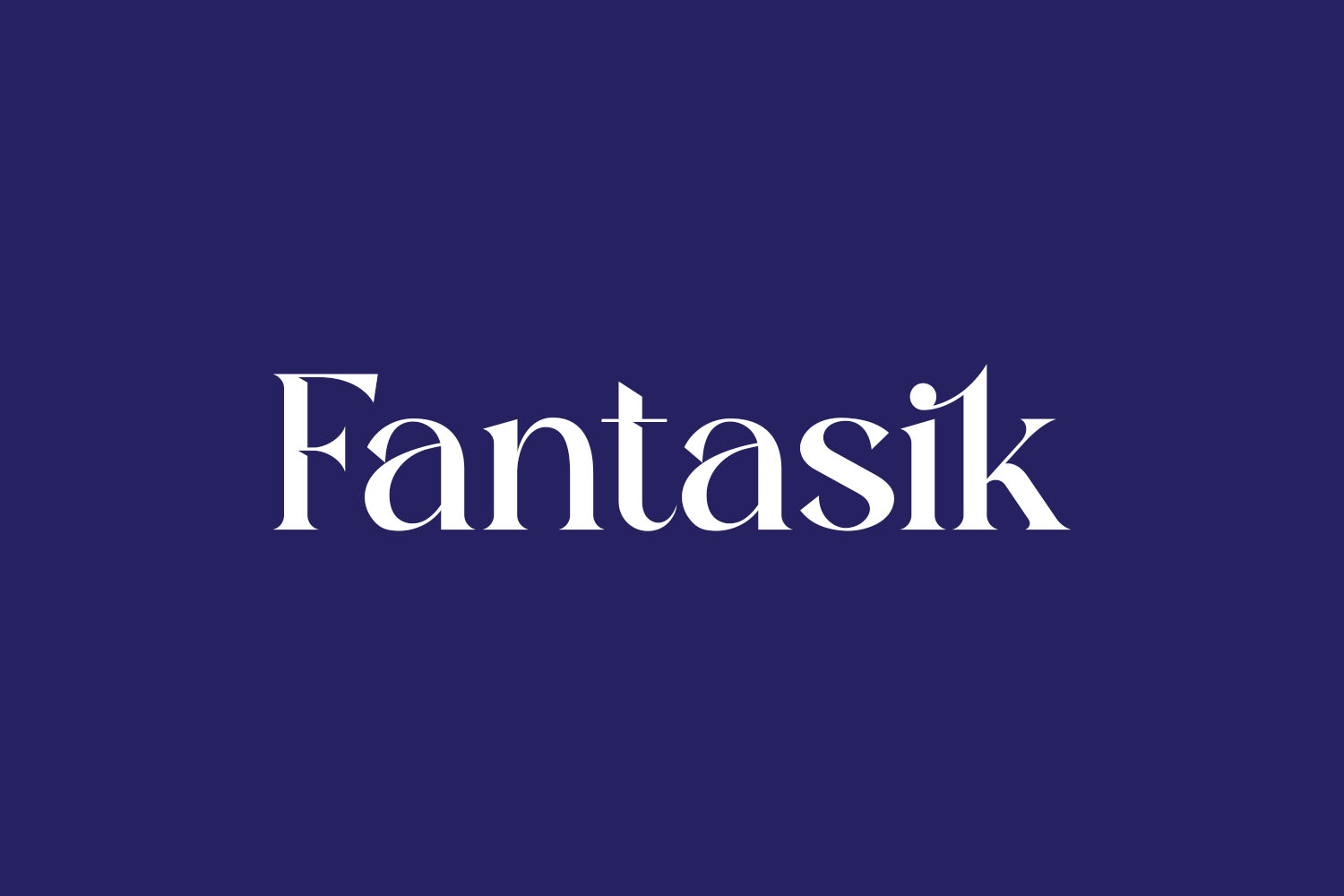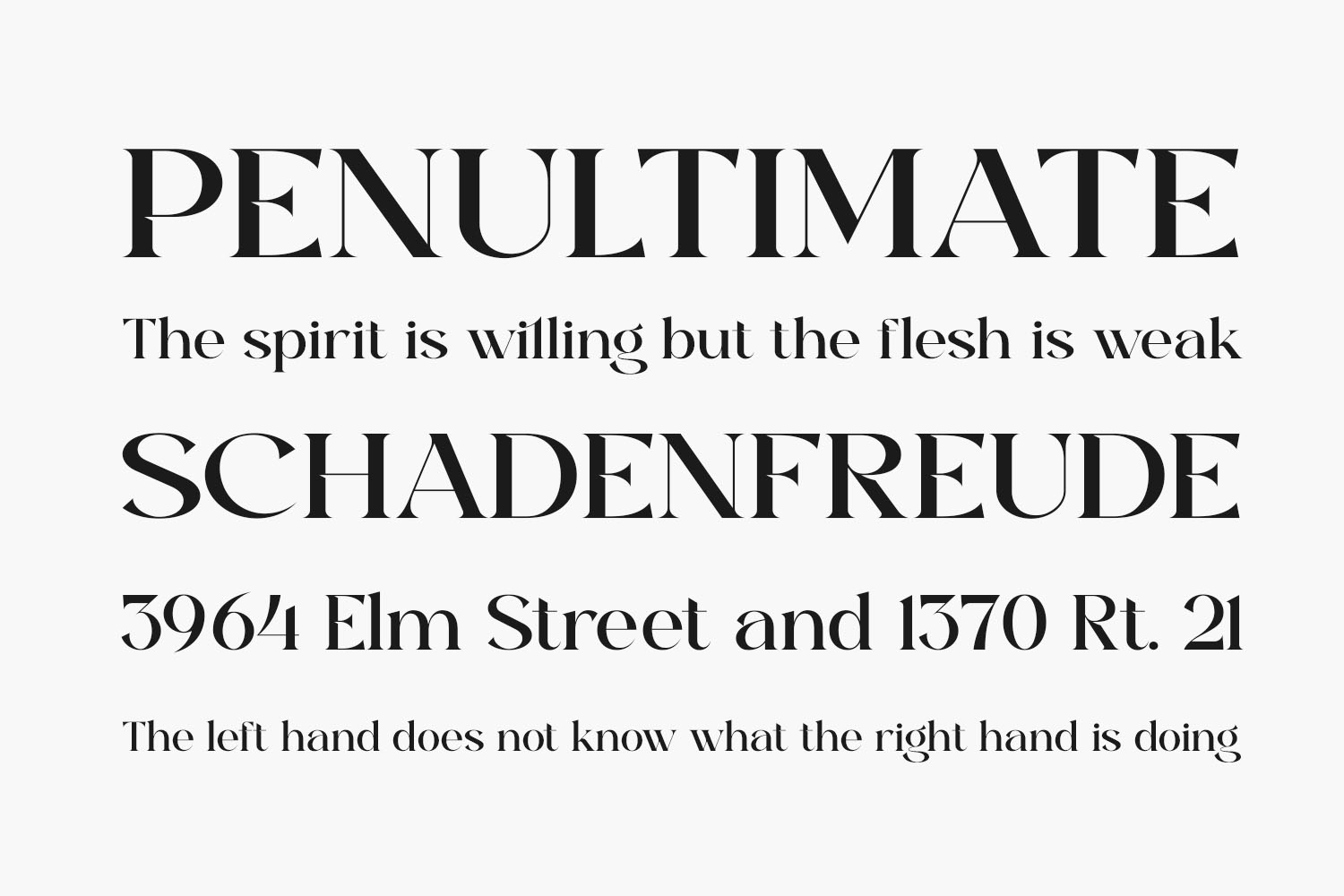
Fantasik Free Font stands out as an exquisite serif font, blending sophistication with a trendy flair. Tailored for projects exuding luxury, elegance, and femininity, this font is an ideal choice for crafting contemporary and chic designs. Elevate your creations with the allure of Fantasik. Fantasik Free Font is free for personal use only. Please purchase the full version for commercial use.